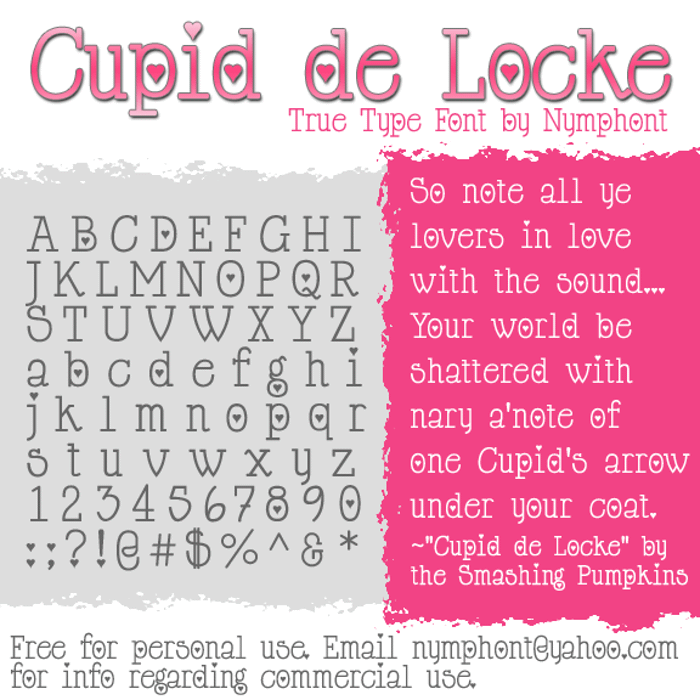
Cupid de Locke Font
Inspired by my existing fonts HappyPhantom and LT Chickenhawk
they have this font on a domo shirt i have OOO:
This is quickly becoming my favorite font!